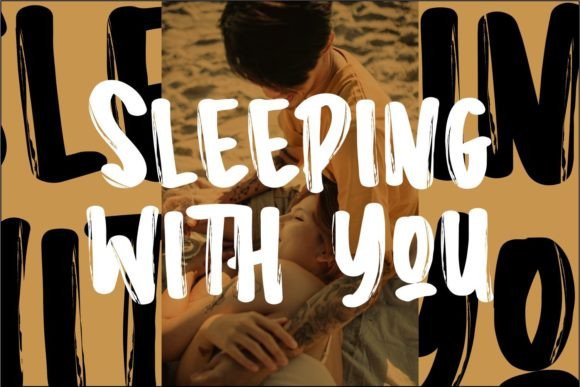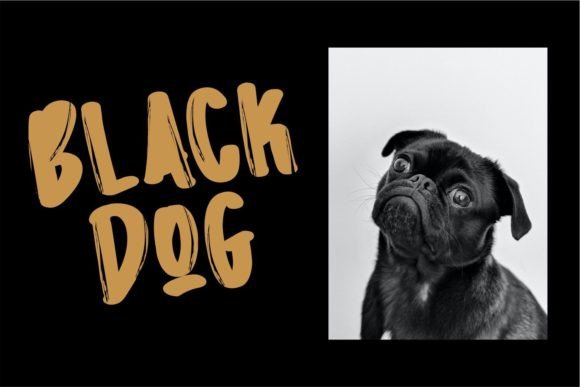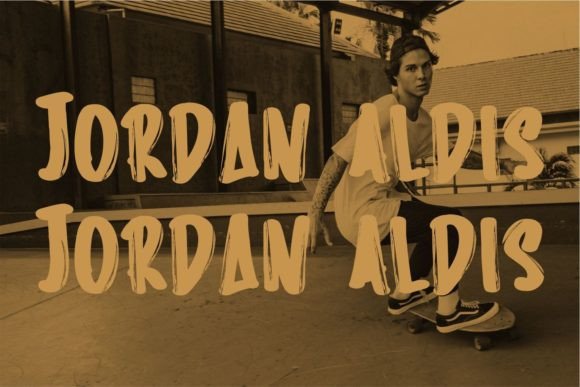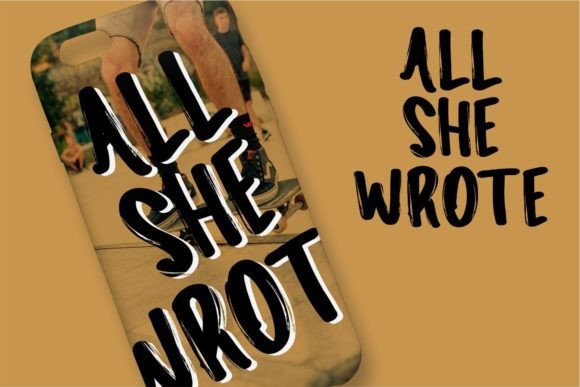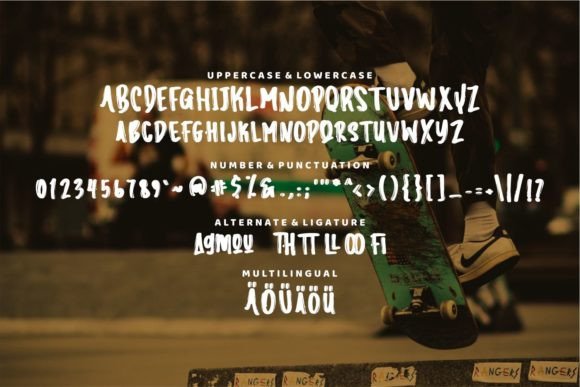
Introduction to Gemuruh Font
Gemuruh is a brush display font with a handwritten style.
It will look so beautiful on invitations like greeting cards, branding materials, business cards, quotes, posters, and more .
Key Features of Gemuruh Font